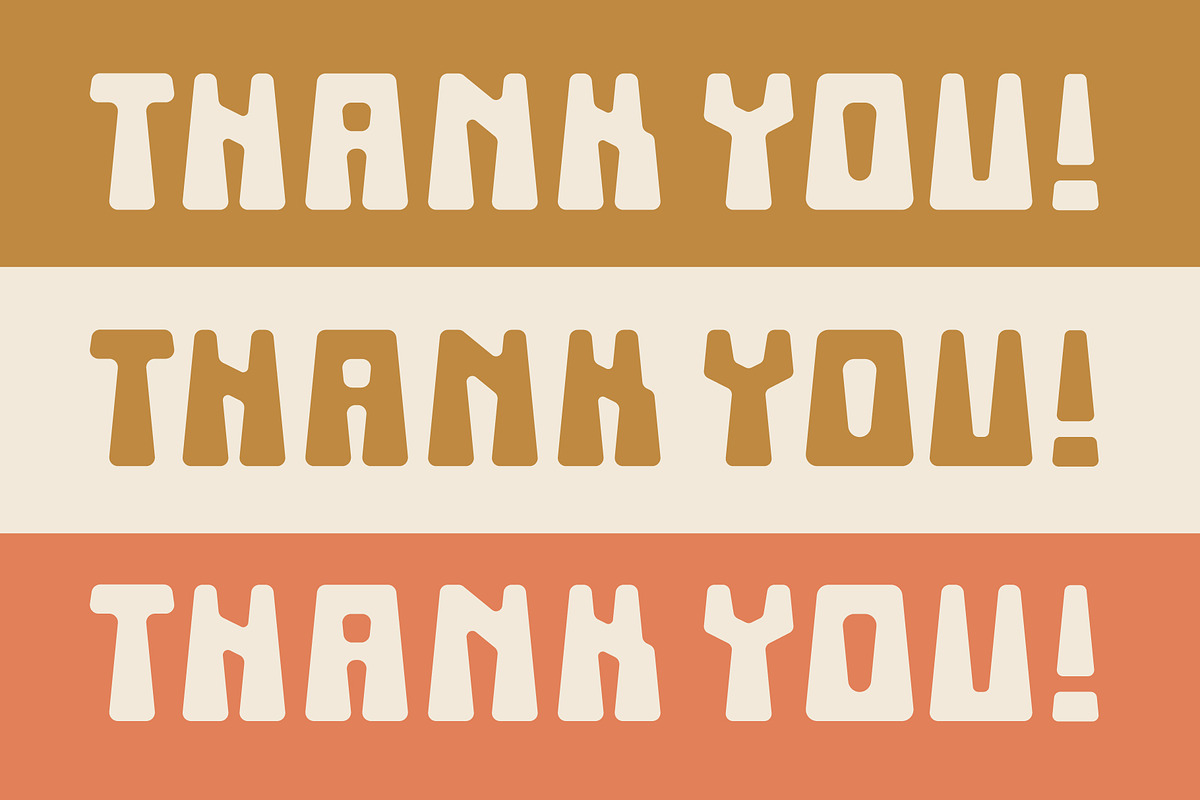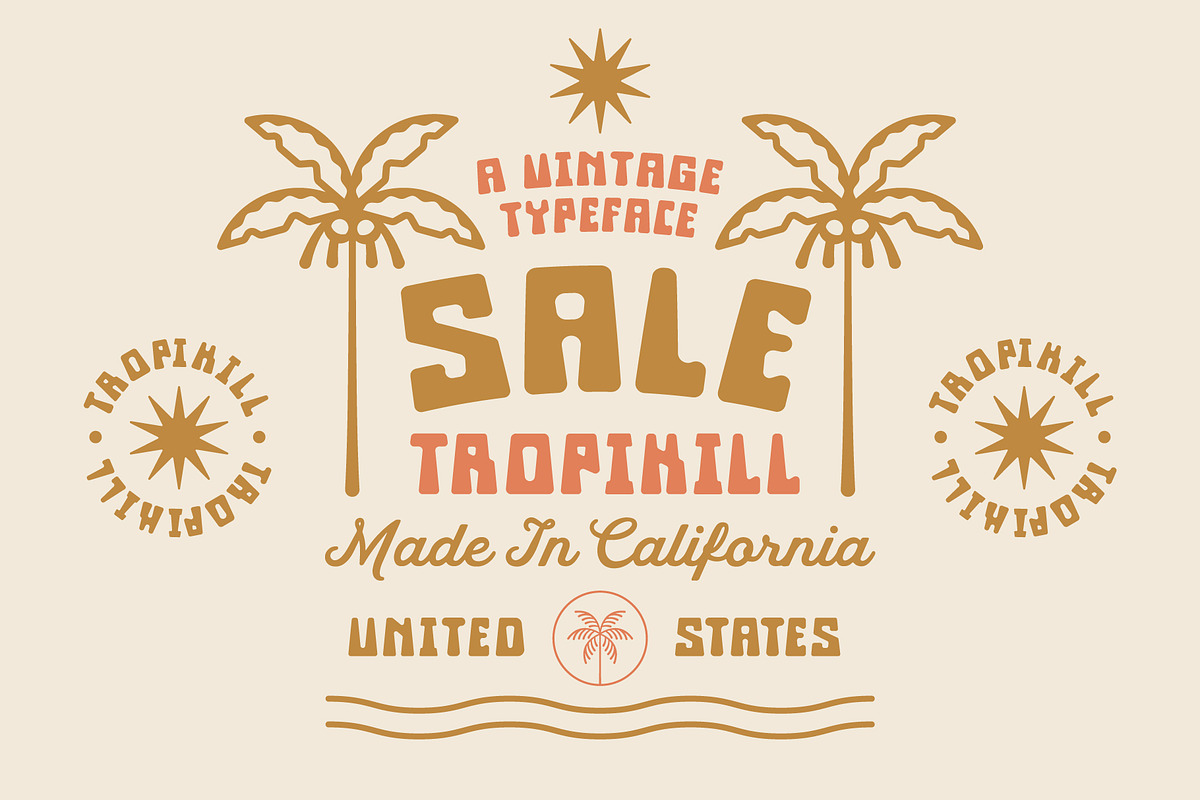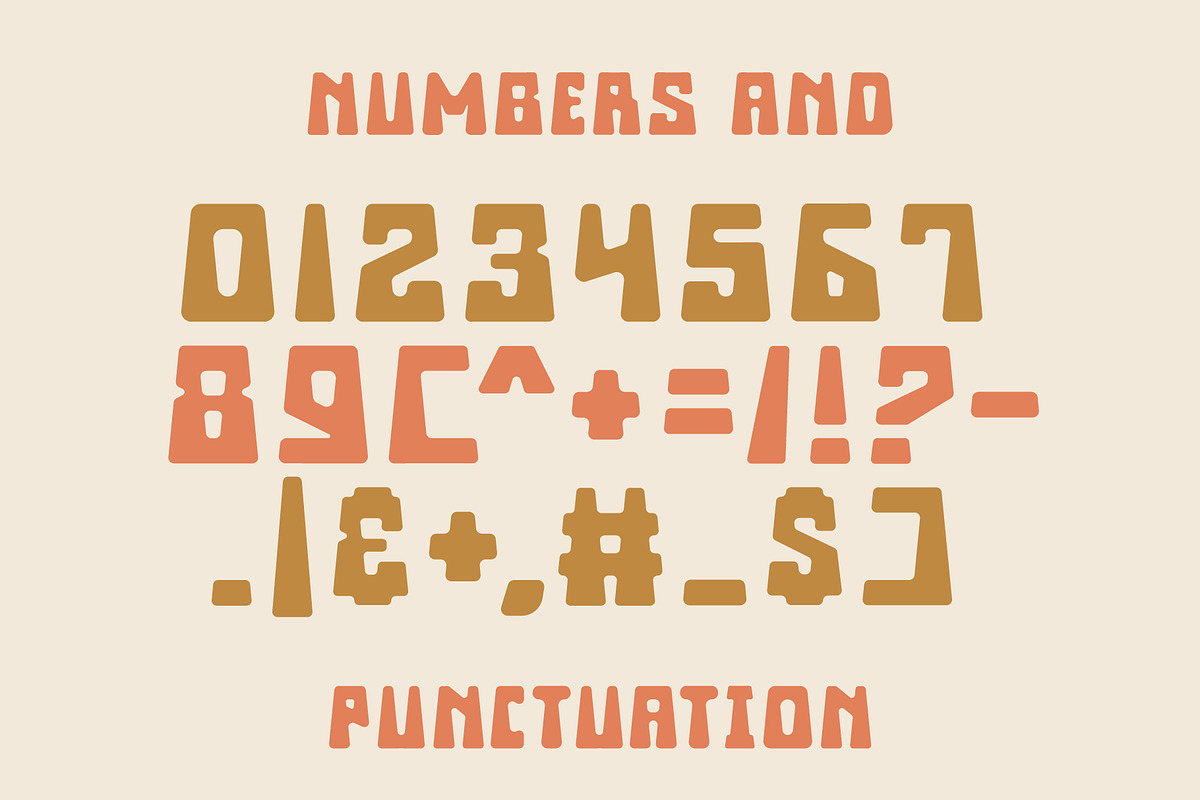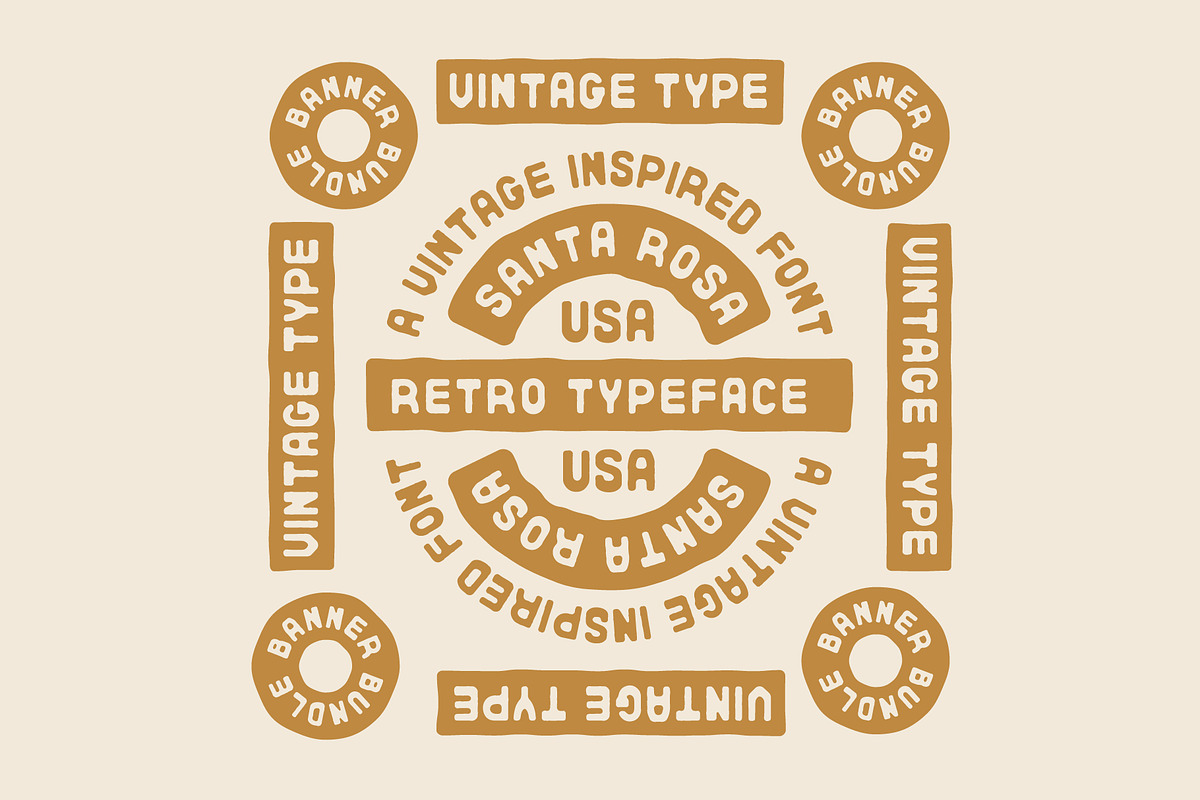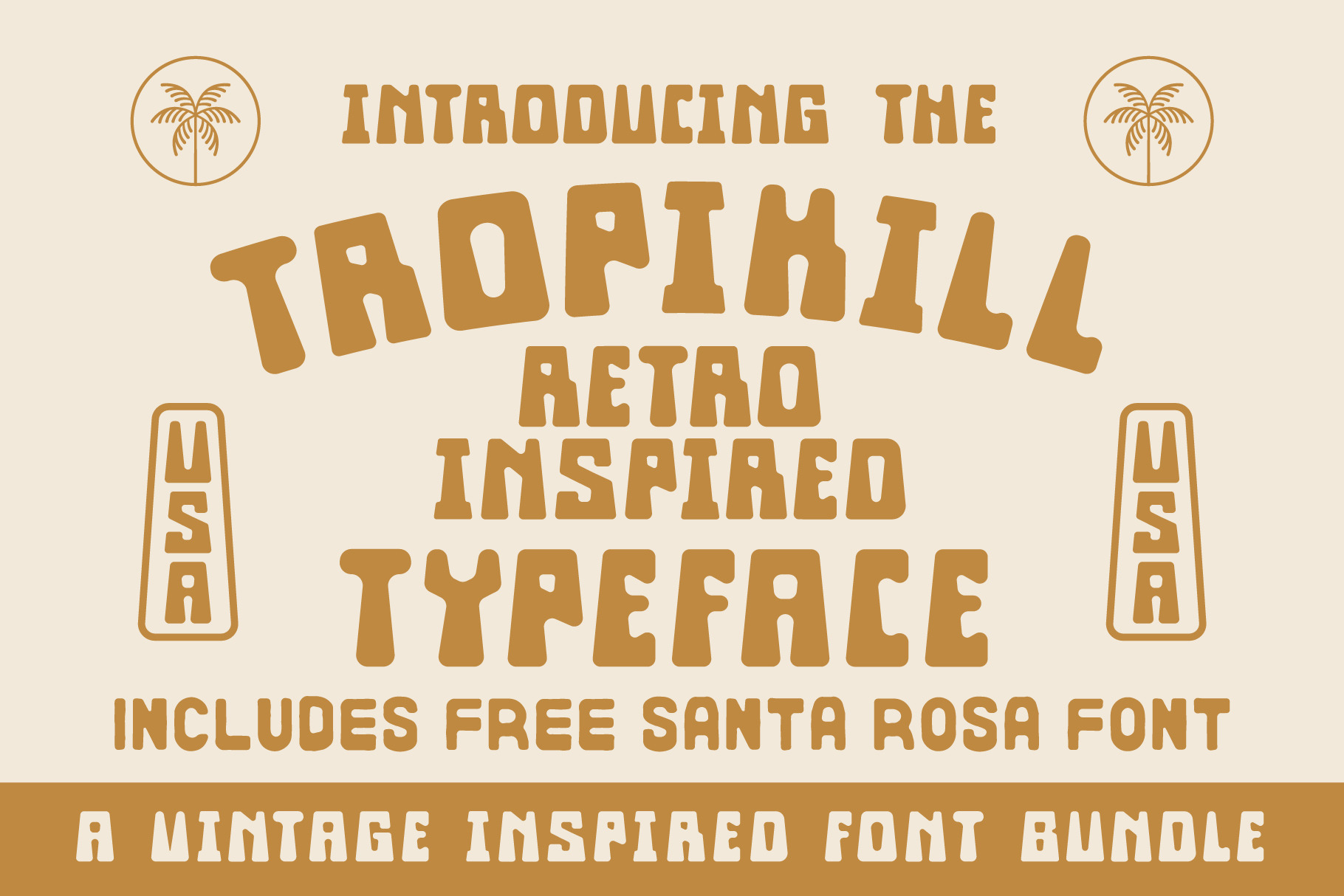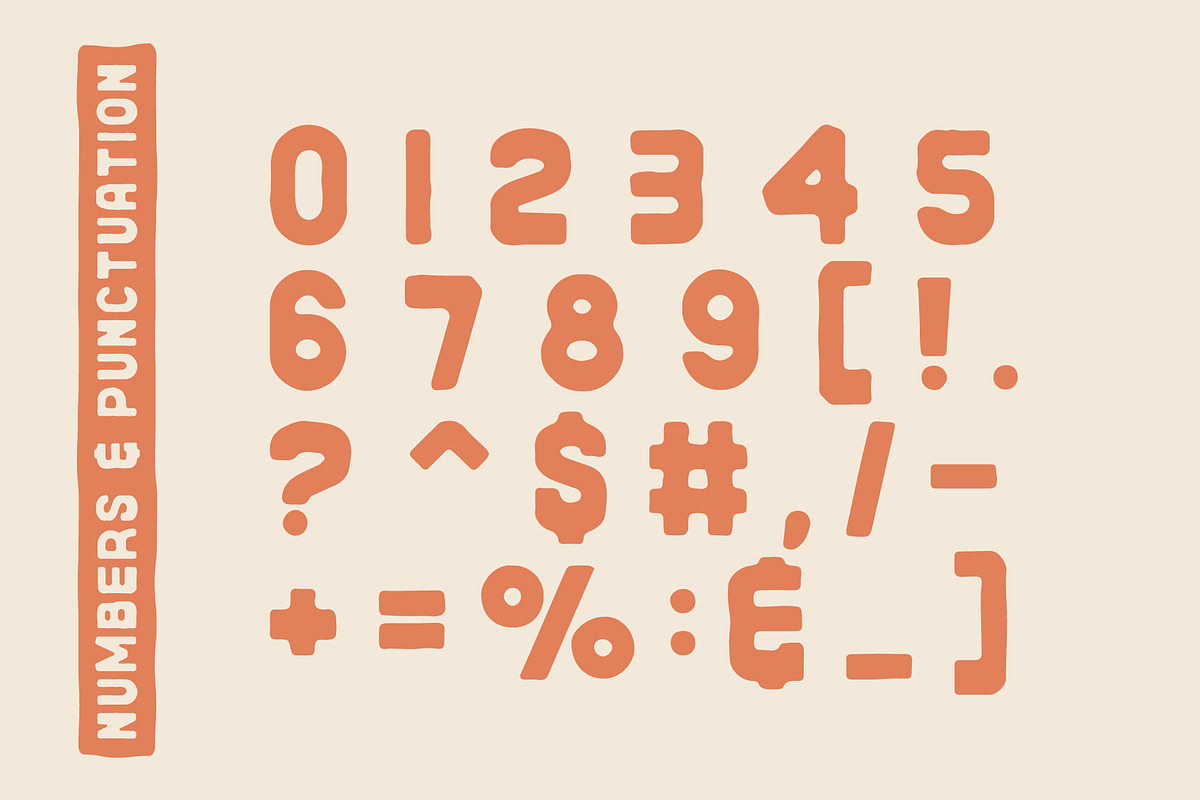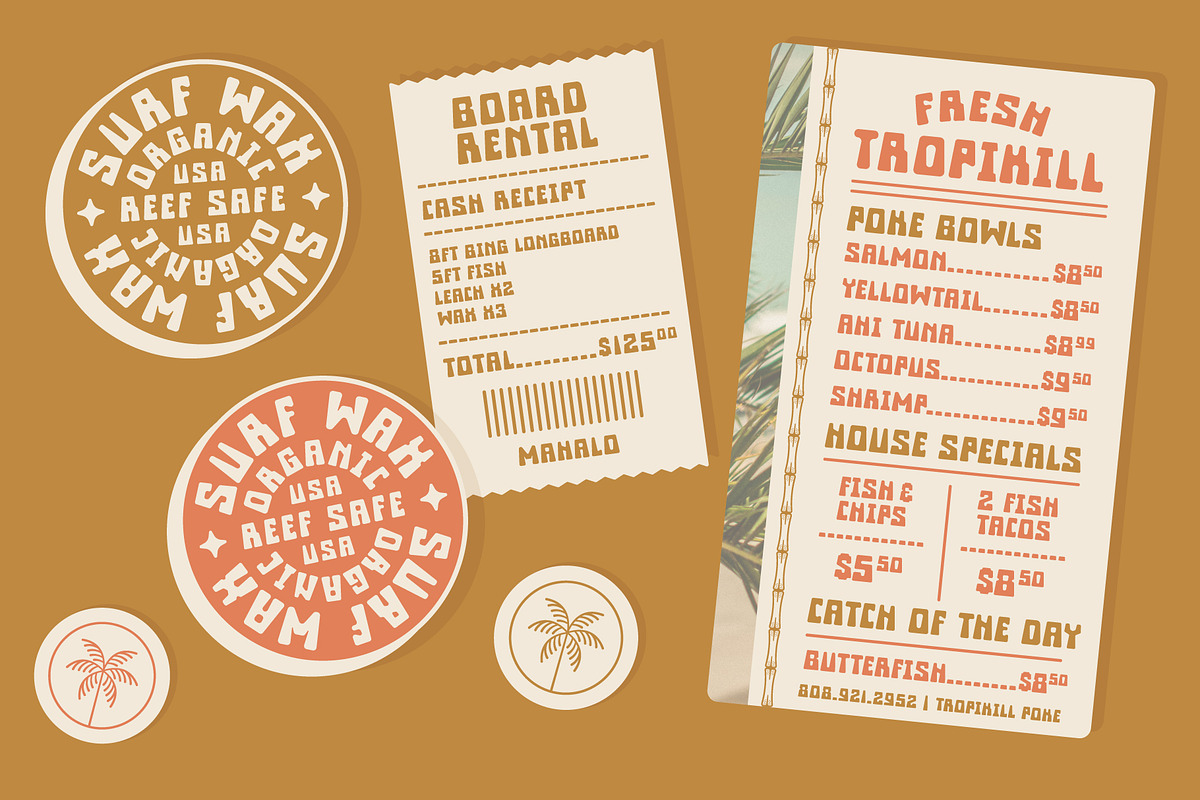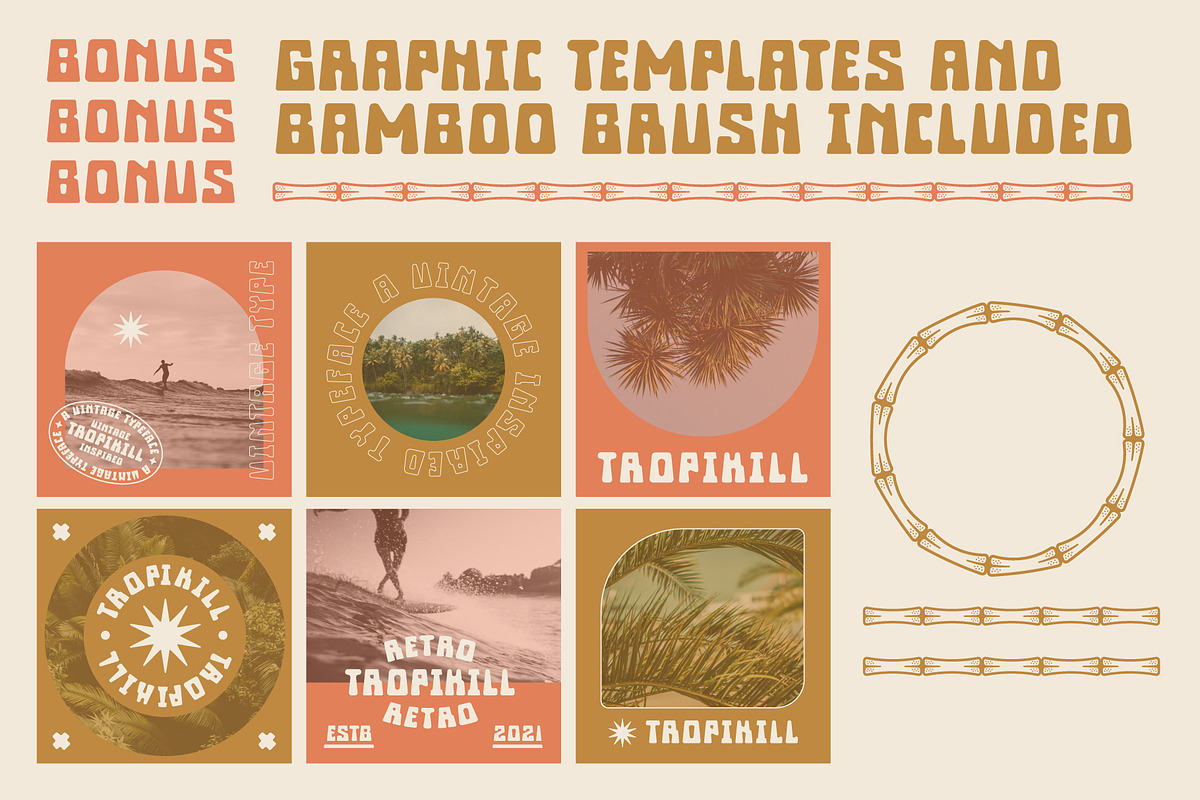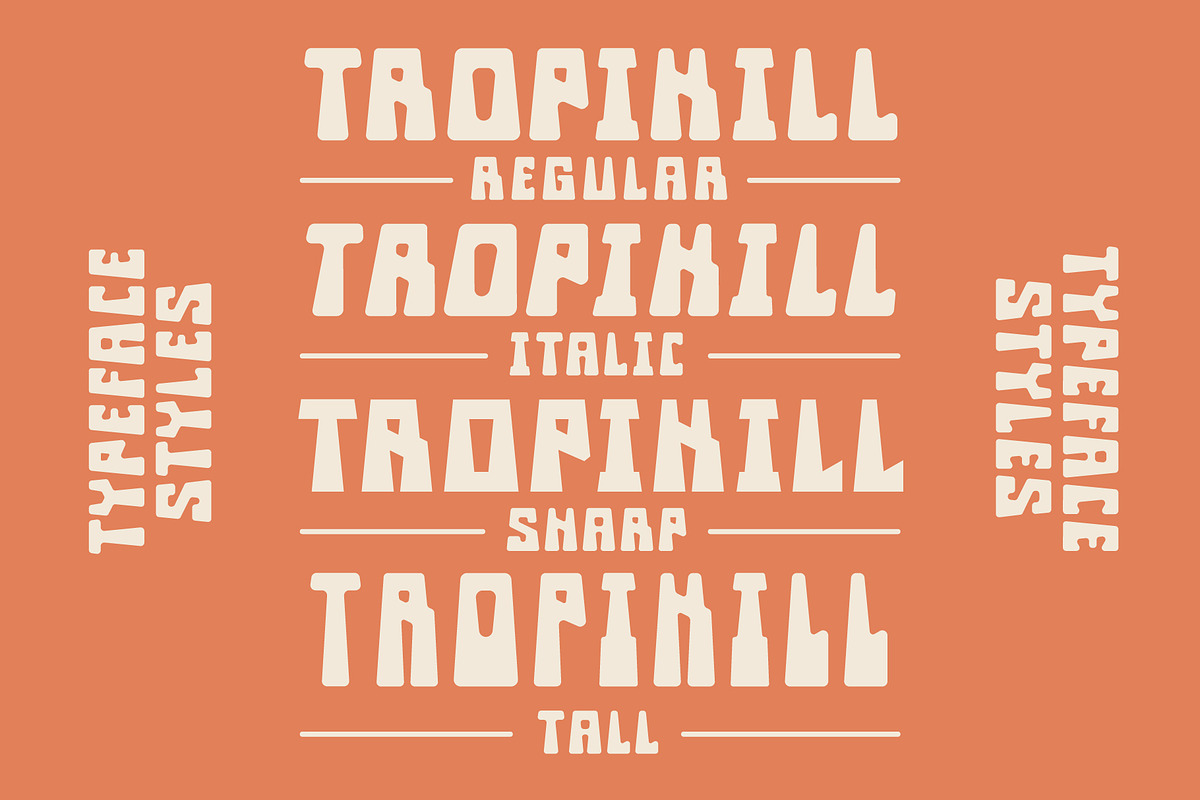
Tropikill Font Duo
Introducing the Tropikill Typeface, inspired by vintage surf magazines and old Hawaiian signage/ print pieces.
Bundle Includes:
- Tropikill Regular
- Tropikill Italic
- Tropikill Sharp
- Tropikill Tall